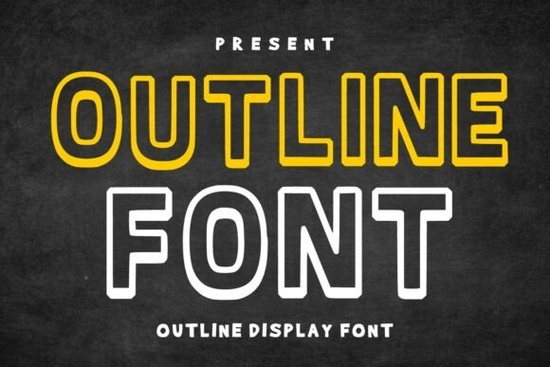
If you're looking for a bold, eye-catching display font that works well across digital and print projects, Outline Font Display is a strong choice. It’s designed with clean geometric shapes and a sporty, modern feel perfect for headlines that need to stand out without losing clarity. Whether you’re making team logos, event posters, or t-shirt designs, this font delivers a confident look with consistent readability.
What makes Outline Font Display special?
The standout feature of this typeface is its outlined letterforms. Unlike solid fonts, the open structure gives it a dynamic, energetic vibe ideal for sports branding, gaming graphics, or promotional materials where visibility matters. The clean lines and balanced proportions keep it professional, not overly flashy, so it fits both casual and high-impact uses.
You’ll find it especially useful when working on:
- Varsity-inspired designs and school spirit graphics
- Esports team branding and tournament banners
- T-shirt prints, hoodies, and apparel labels
- Posters, flyers, and social media visuals for events
- Product packaging with a modern edge
- Cricut or Silhouette projects requiring bold text
How does it perform in real-world projects?
Because of its strong construction, Outline Font Display stays sharp at large sizes no pixelation or blurriness even when scaled up. It’s equally effective on screens (like Instagram posts or website headers) and in print (such as business cards or printed banners). The open outlines also make it great for layered designs, like combining with background textures or color fills.
Many designers appreciate how easy it is to pair with other fonts. Use it for headlines and combine it with a simple sans-serif or serif for body text. This contrast adds visual rhythm without overwhelming the layout.
Who should consider using this font?
It’s a solid fit for small business owners creating merch, crafters working on DIY projects, print-on-demand sellers, and creative professionals who want a reliable, versatile display typeface. If you’re building a brand around energy, movement, or athleticism, this font supports that identity naturally.
For example, if you’re designing a new line of gym wear or launching an esports tournament page, Outline Font Display helps communicate excitement while keeping your message clear.
Where can I use it beyond just logos?
Beyond branding, this font shines in:
- Event promotions – Great for concert fliers, race day signs, or sports game announcements
- Social media content – Makes captions and story overlays more engaging
- Merchandise designs – Works well on mugs, tote bags, and stickers
- Website headers – Adds personality to section titles or call-to-action buttons
Final thoughts: Is it worth adding to your library?
If you often work with bold headlines or need a font that commands attention without sacrificing clarity, yes this one fits well. It’s not just another generic display font; its outlined structure gives it a distinct personality. Plus, it’s practical across many formats and platforms.
For best results, try it with contrasting colors or backgrounds. The open shape lets light or color flow through, which enhances visual impact. And don’t forget to test it at different sizes its strength really shows when used large.
Once you’ve added it to your toolkit, you’ll likely reach for it again and again especially when you need a little extra punch in your next project.